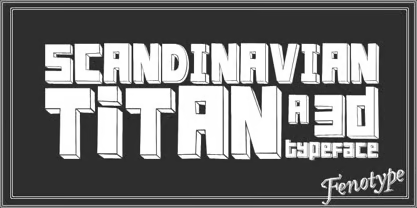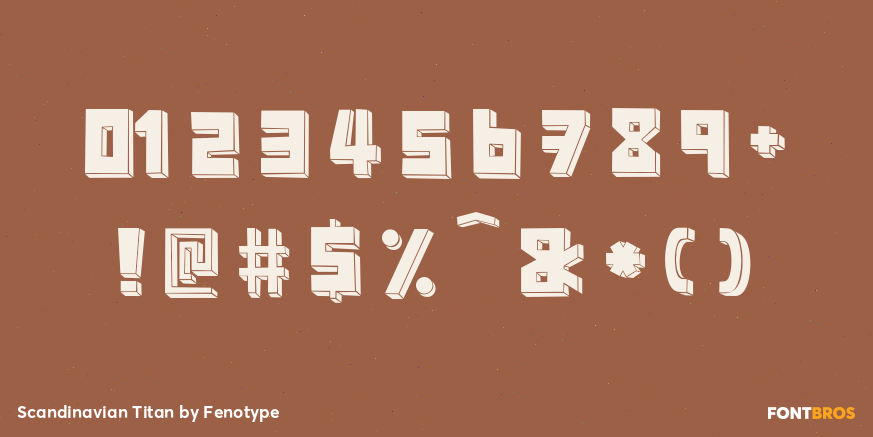
Scandinavian Titan
Font Family by Fenotype
Scandinavian Titan is a single-style display face with a bold, offbeat personality. Its look feels playful and unconventional, making it a strong choice when you want typography to bring instant character and a slightly rough, hand-touched attitude to the page.
Listed among fun/wacky, graffiti/urban, handwritten, sans serif, and special effect styles, it leans naturally toward expressive display work rather than quiet body text. Use it for posters, branding, social graphics, apparel, packaging, or other headline-driven pieces that benefit from a more energetic, attention-grabbing voice.